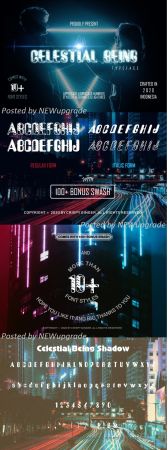
Celestial Being
Celestial Being shadow
Celestial Being line
Celestial Being line italic
Celestial Being italic
Celestial Being italic shadow
Celestial Being front
Celestial Being Back
Celestial Being Middle
Celestial Being Grunge
Celestial Being italic Grunge
Celestial Being Mirror
Celestial Being Mirror italic
Celestial Being Swashes
the total number is 13 font styles and 150+ swashes.